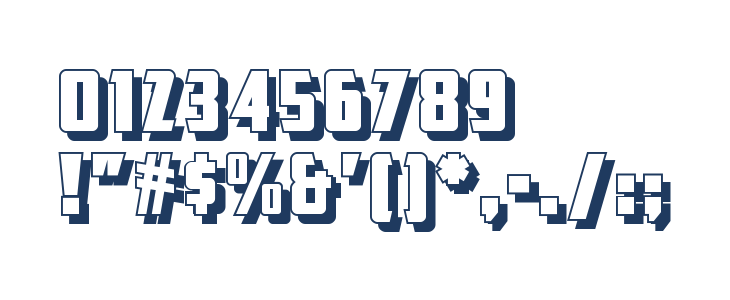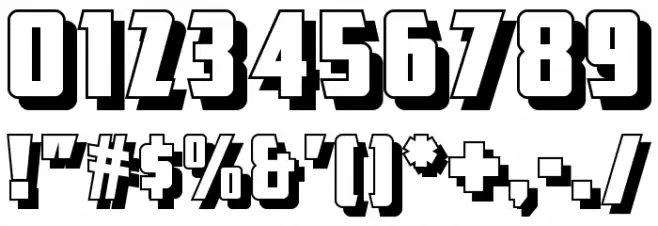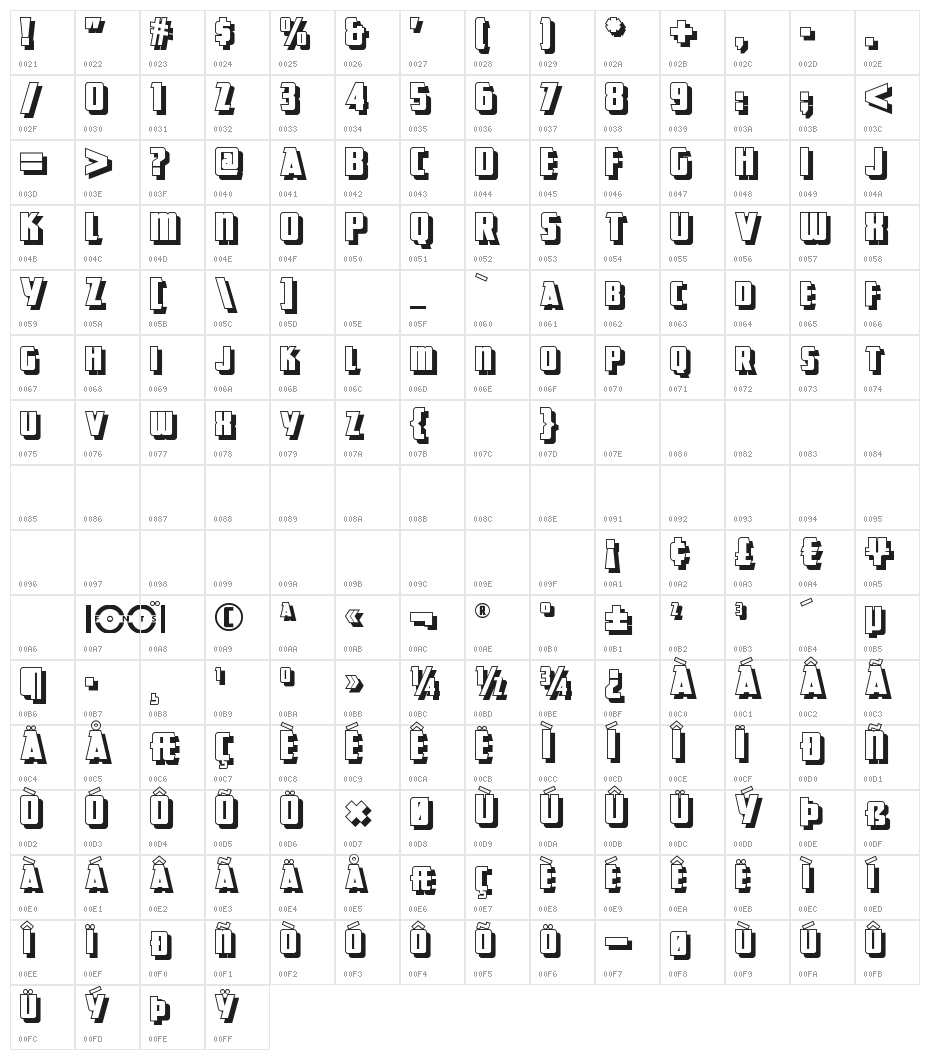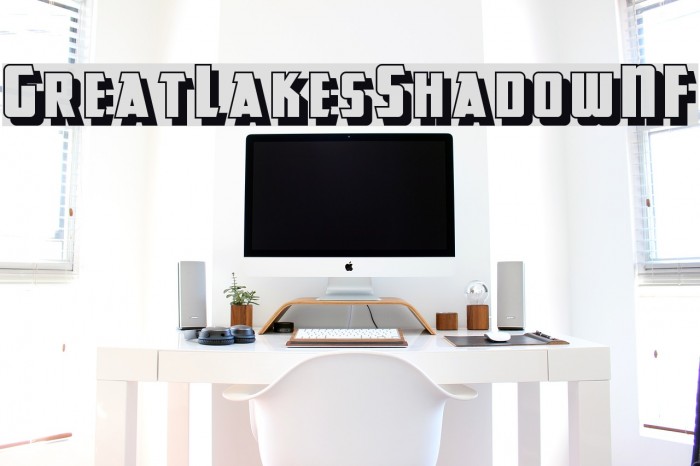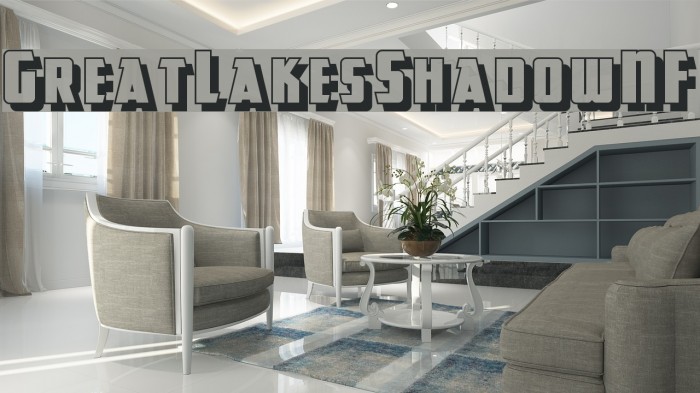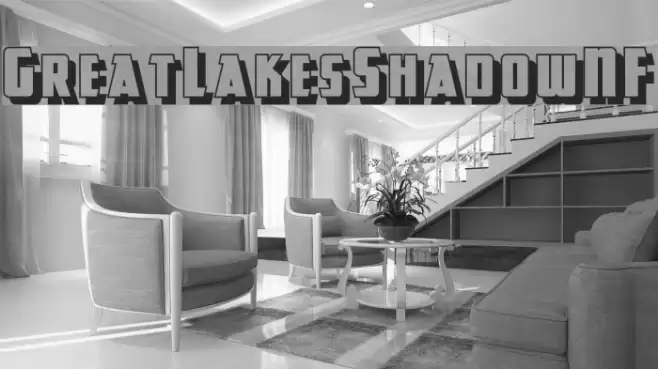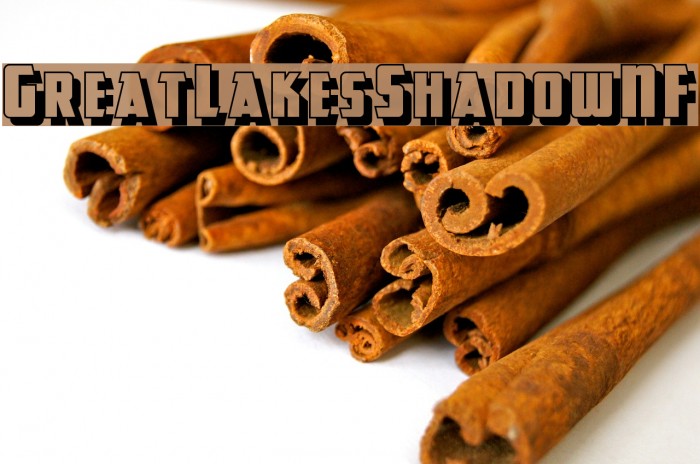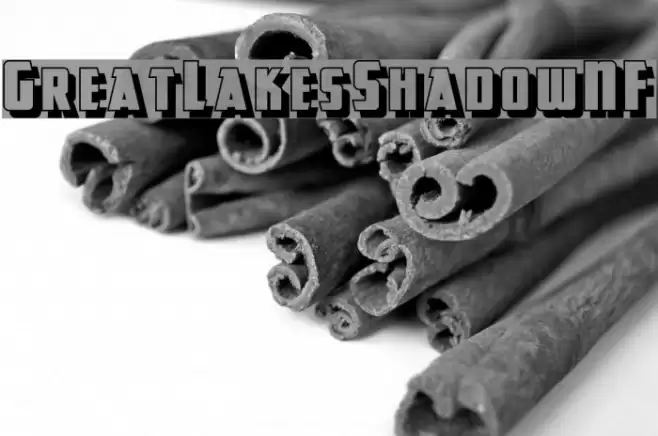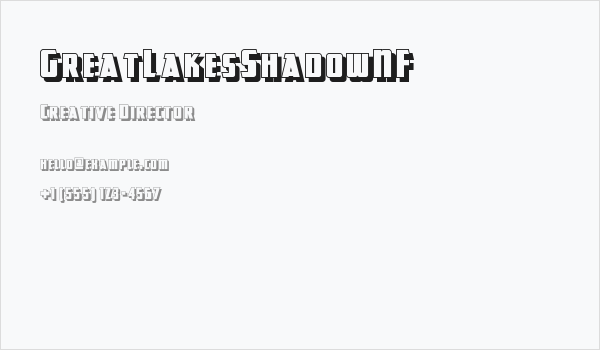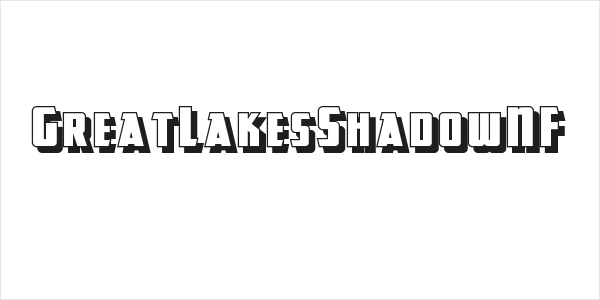
GreatLakesShadowNF Font
GreatLakesShadowNF Description
This bold, decorative font features a distinct shadow effect that gives it a three-dimensional appearance. The characters are blocky and robust, with sharp angles and a strong presence. The shadow adds depth, making it ideal for eye-catching designs. The uppercase and lowercase letters maintain a consistent style, while the numerals and special characters complement the overall aesthetic. This font is perfect for projects that require a striking and impactful look, such as posters, headlines, or branding materials.
| Proposed Projects | Ideal for posters, headlines, branding, and any design needing a bold statement. |